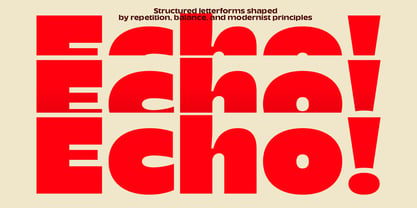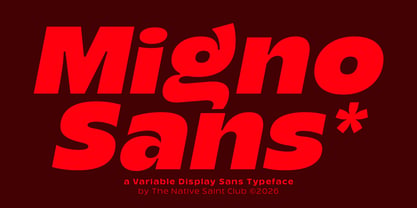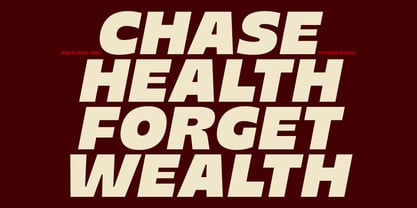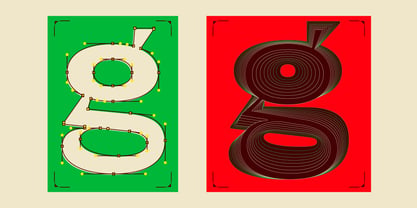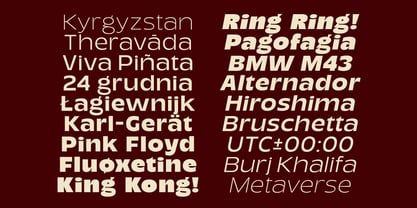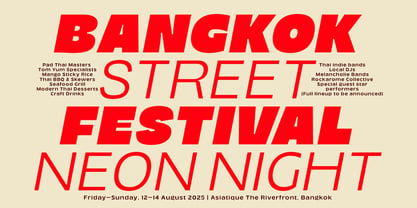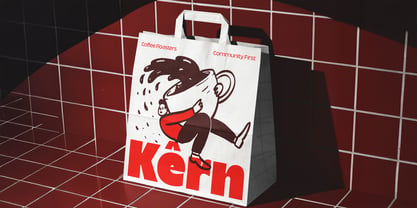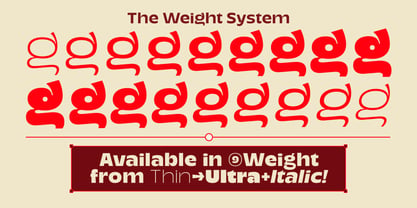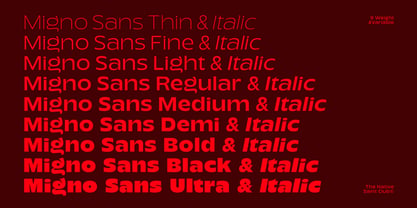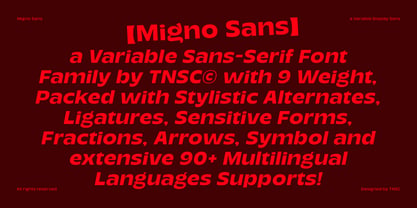
TNSC Migno Sans
by The Native Saint Club
The TNSC Migno Sans Font Family was designed by Bagas Ferdiansah, Septianto Nugroho and published by The Native Saint Club. TNSC Migno Sans contains 18 styles and family package options. More about this family
Migno Sans is a variable and family sans-serif display typeface, offering a full range of weights from Thin to Ultra, including fully designed italics. This typeface is well suited for headlines, posters, branding, and visuals that require a clear and bold typographic presence. NOTE : Please Check the Help File first and for all the characters are also available, accessible in the Adobe Illustrator Glyphs Panel, or in Adobe Photoshop Character Open Type Panel. For upgrading license please contact me. Upgraded licenses are required for apps, books, television, commercial exhibition, film, gaming, print on demand products, etc. simply email me to : We hope you enjoy the font, please feel free to comment if you have any thoughts or feedback. Thanks for purchasing and have fun! Regards, The Native Saint Club